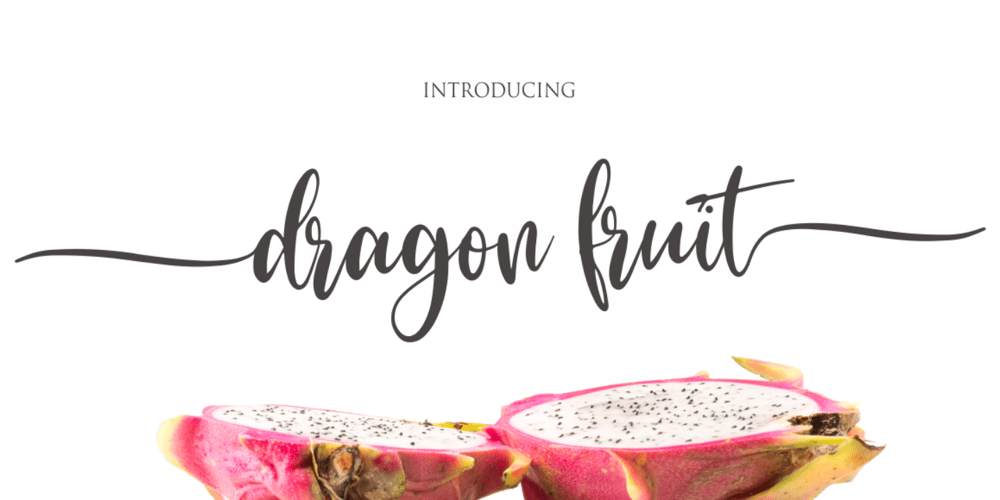
Dragon Fruit Font Family was designed by Siti Nurjanah and published by NJ Studio. Dragon Fruit contains 1 styles and family package options. Hi…Thank for your visit :)dragon fruit a handwritten script font. It features beginning swash and ending swash characters that will take your projects to the next level!This font is PUA code which means you can easily access all the glyphs and swashes that are full of swash! It also features many special features including glyphs. font designs that are made for various vector designs, printing such as digital wedding blogs, online shops, social media, while printing can be used in the field of product clothing, accessories, bags, pins, logos, business cards, watermarks and many others …so it can make your product look cute and attractive, and also Multilingual support!!!Happy design …